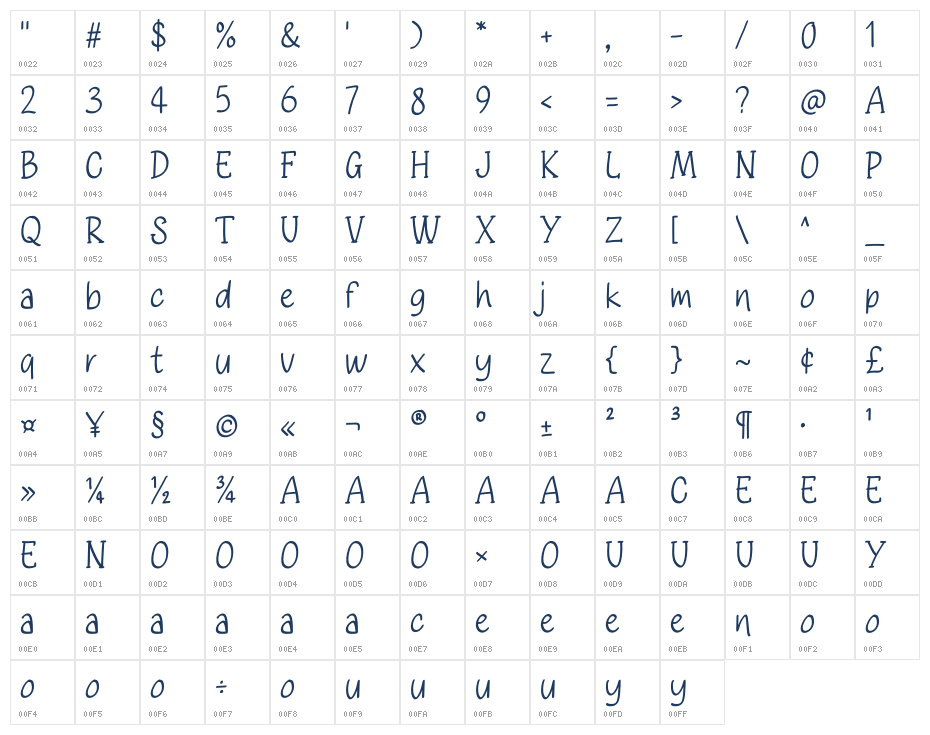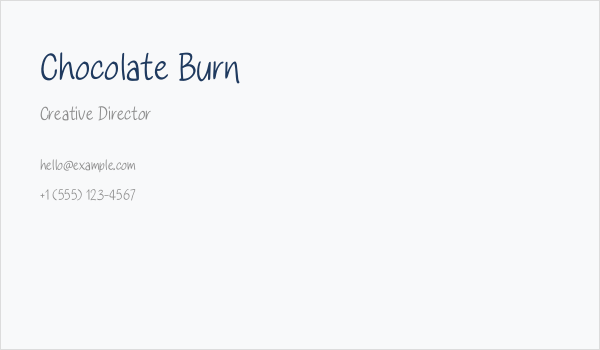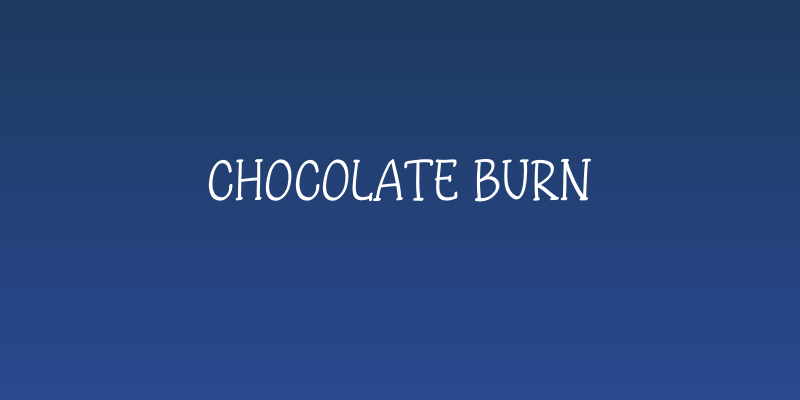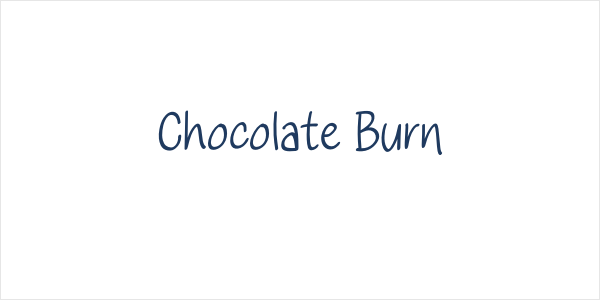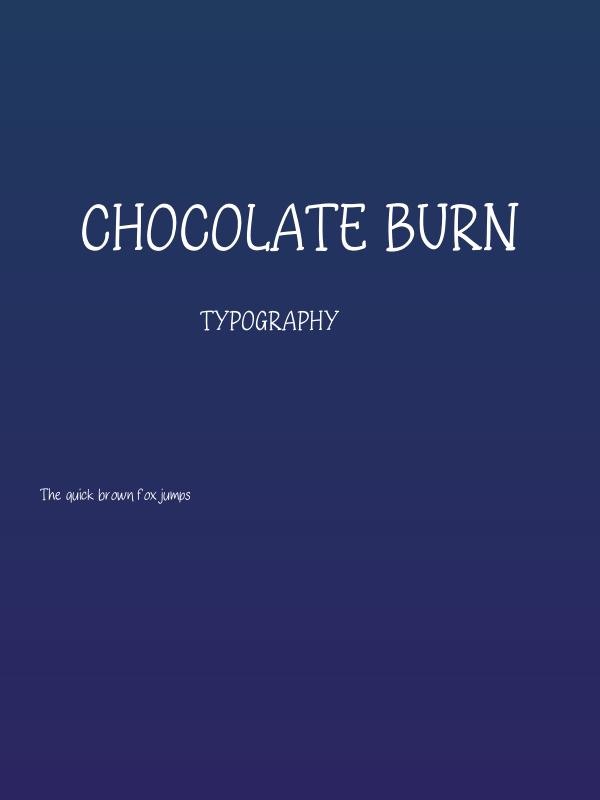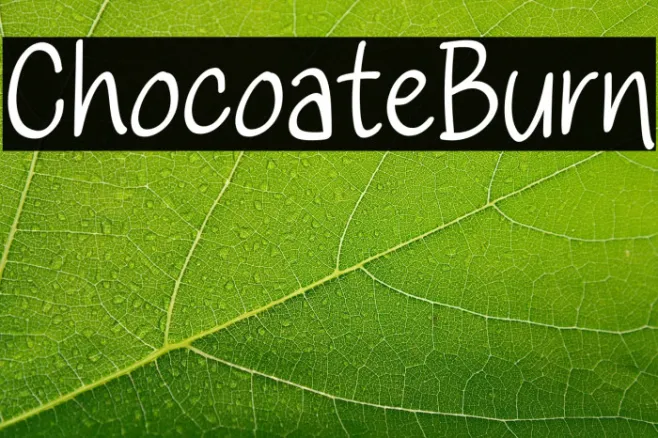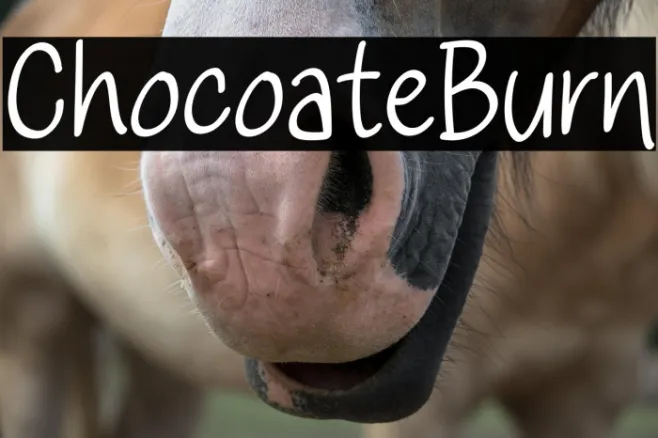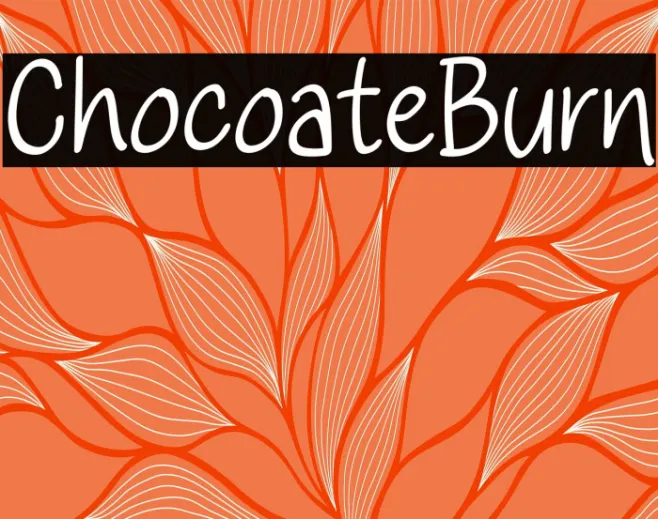
Chocolate Burn Font
Chocolate Burn Description
A casual, handwritten style font with a playful and informal appearance, featuring slightly irregular strokes and a friendly vibe.
| Overall Style | Casual, Friendly, Handwritten |
| Use Case | Headlines, Body text, Logos, Personal projects |